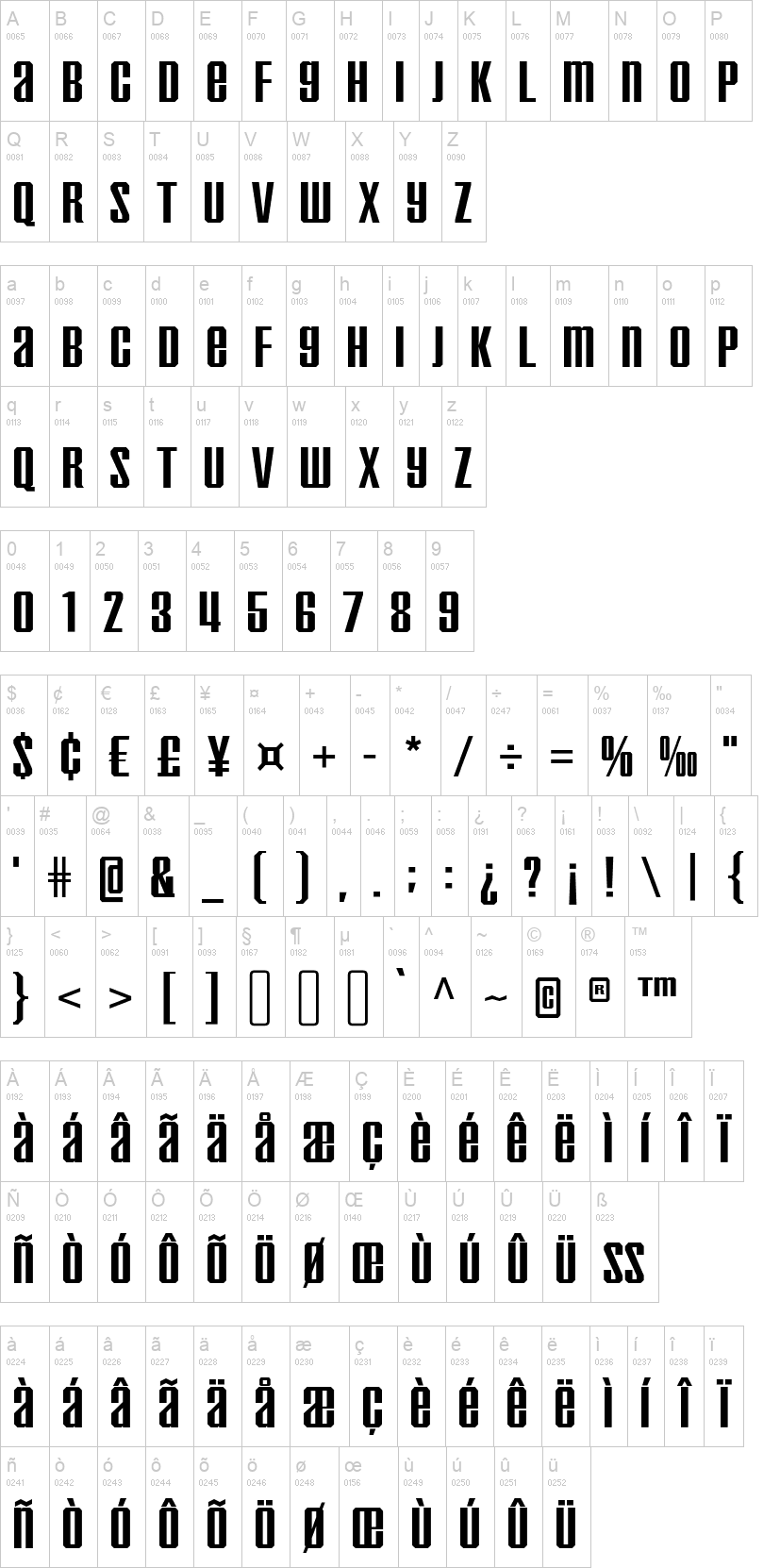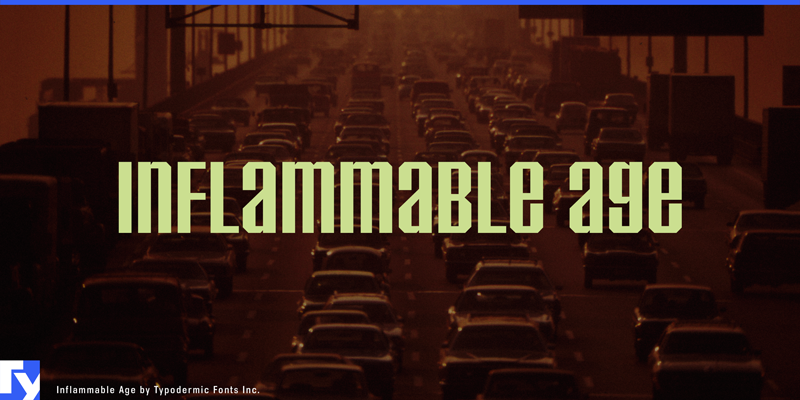
Note of the authorInflammable Age is a display typeface with an octagonal structure. Chamfered corners and unconventional letterforms combine to create a one-of-a-kind technological expression of uncompromising precision. Most Latin-based European writing systems are supported, including the following languages. Afaan Oromo, Afar, Afrikaans, Albanian, Alsatian, Aromanian, Aymara, Azerbaijani, Bashkir (Latin), Basque, Belarusian (Latin), Bemba, Bikol, Bosnian, Breton, Cape Verdean, Creole, Catalan, Cebuano, Chamorro, Chavacano, Chichewa, Crimean Tatar (Latin), Croatian, Czech, Danish, Dawan, Dholuo, Dutch, English, Estonian, Faroese, Fijian, Filipino, Finnish, French, Frisian, Friulian, Gagauz (Latin), Galician, Ganda, Genoese, German, Gikuyu, Greenlandic, Guadeloupean Creole, Haitian Creole, Hawaiian, Hiligaynon, Hungarian, Icelandic, Igbo, Ilocano, Indonesian, Irish, Italian, Jamaican, Kaingang, Kanuri, Kaqchikel, Karakalpak (Latin), Kashubian, Kikongo, Kinyarwanda, Kirundi, Kurdish (Latin), Latvian, Lithuanian, Lombard, Low Saxon, Luxembourgish, Maasai, Makhuwa, Malay, Maltese, Māori, Moldovan, Montenegrin, Nahuatl, Ndebele, Neapolitan, Norwegian, Novial, Occitan, Ossetian (Latin), Papiamento, Piedmontese, Polish, Portuguese, Quechua, Rarotongan, Romanian, Romansh, Sami, Sango, Saramaccan, Sardinian, Scottish Gaelic, Serbian (Latin), Shona, Sicilian, Silesian, Slovak, Slovenian, Somali, Sorbian, Sotho, Spanish, Swahili, Swazi, Swedish, Tagalog, Tahitian, Tetum, Tongan, Tshiluba, Tsonga, Tswana, Tumbuka, Turkish, Turkmen (Latin), Tuvaluan, Uzbek (Latin), Venda, Venetian, Vepsian, Võro, Walloon, Waray-Waray, Wayuu, Welsh, Wolof, Xavante, Xhosa, Yapese, Zapotec, Zarma, Zazaki, Zulu and Zuni.